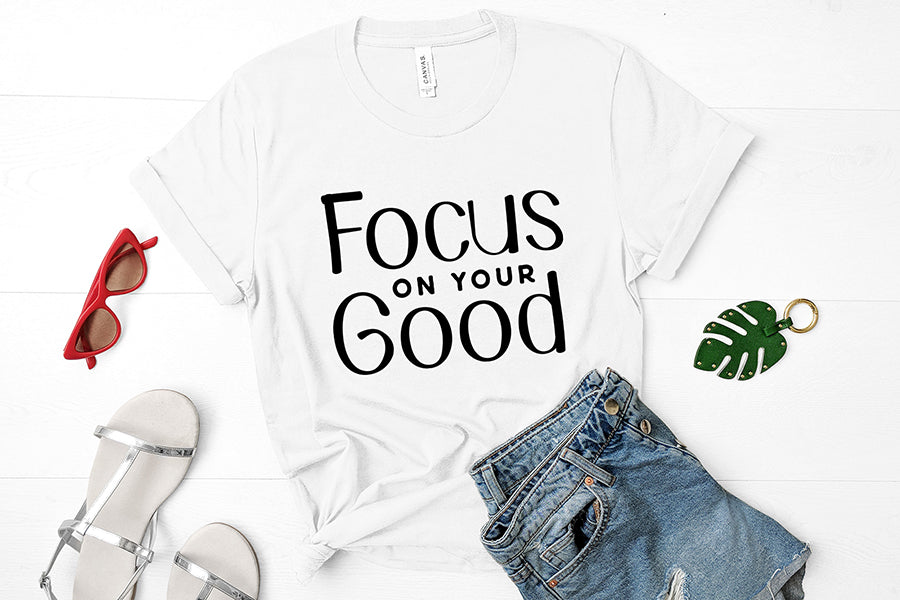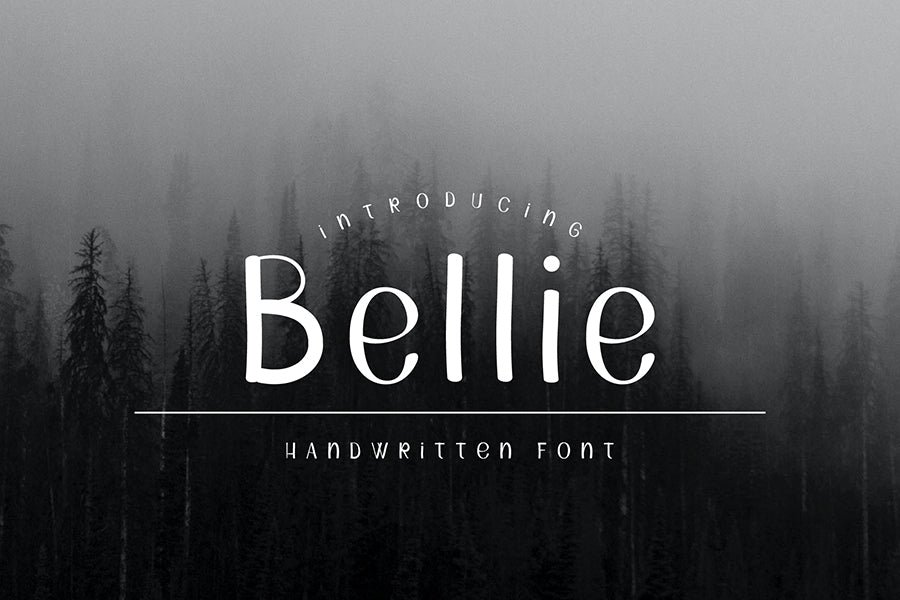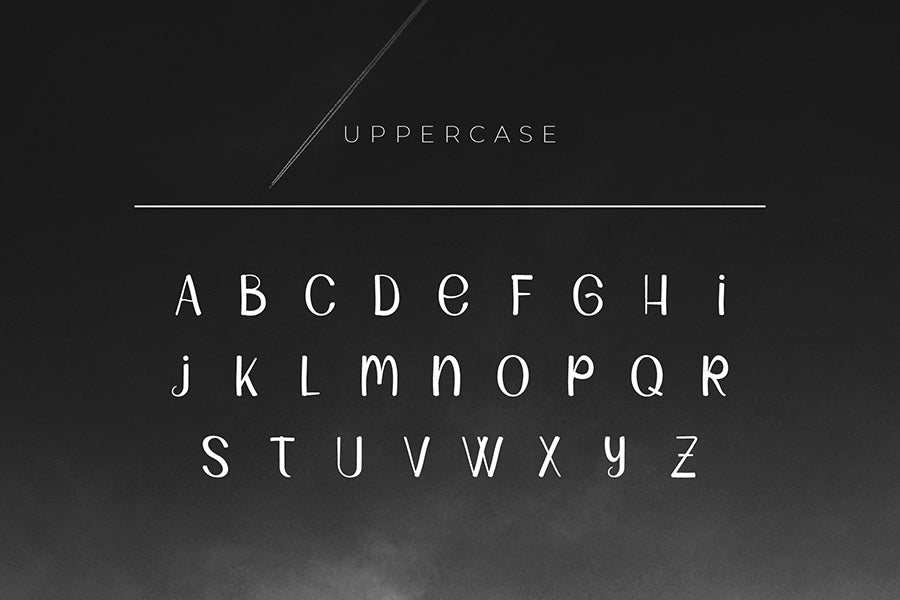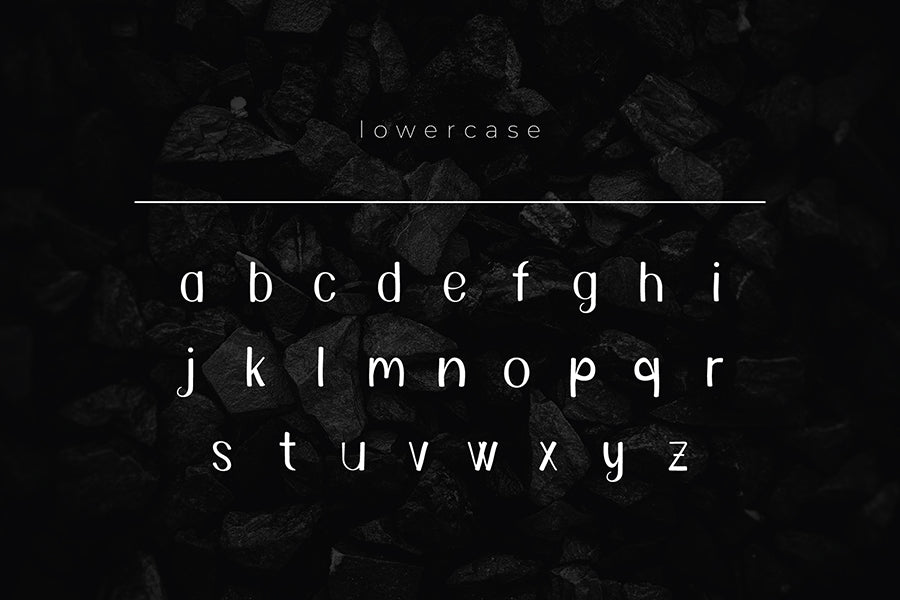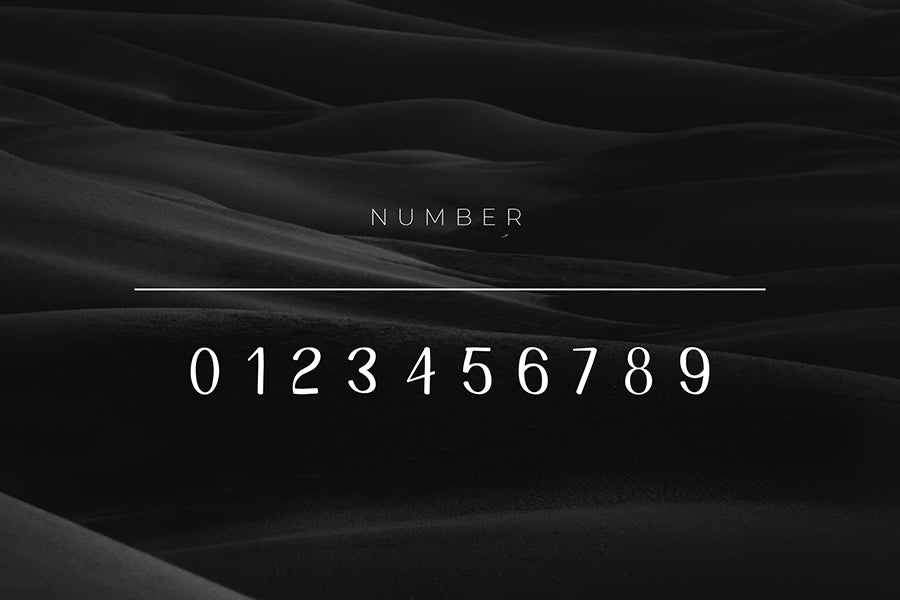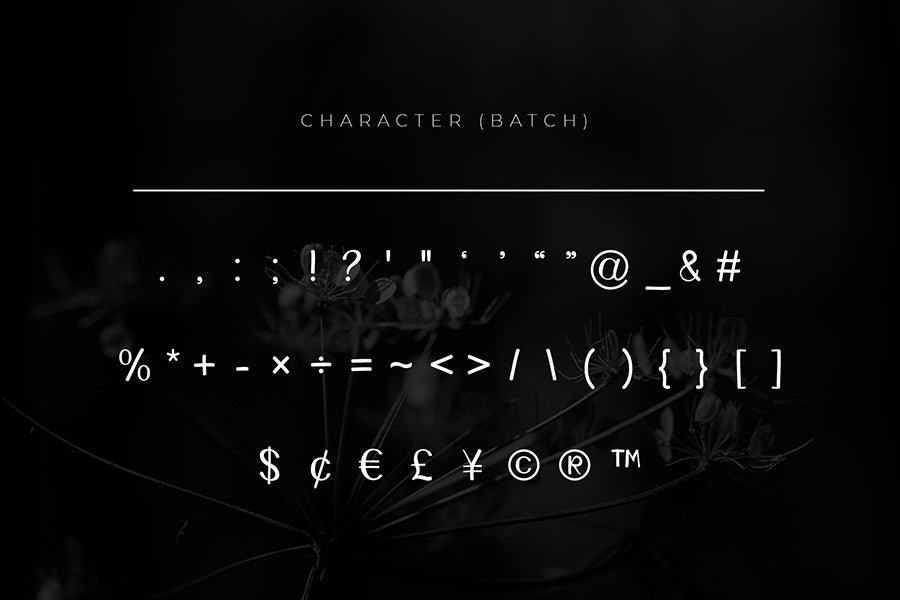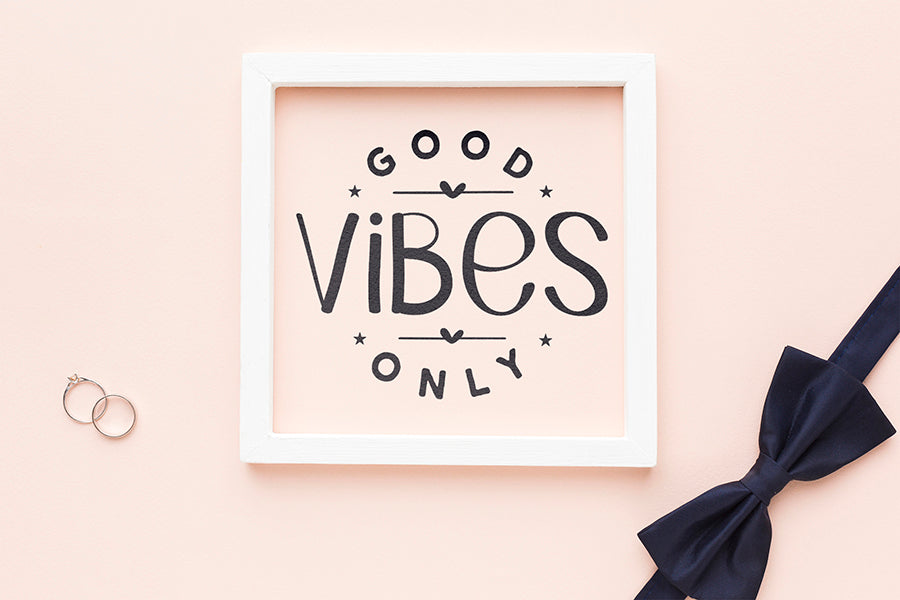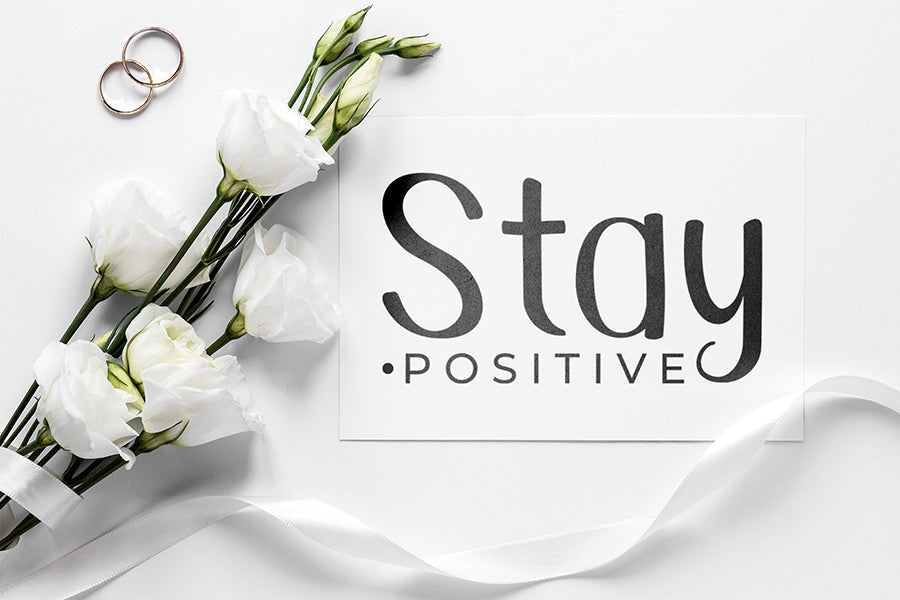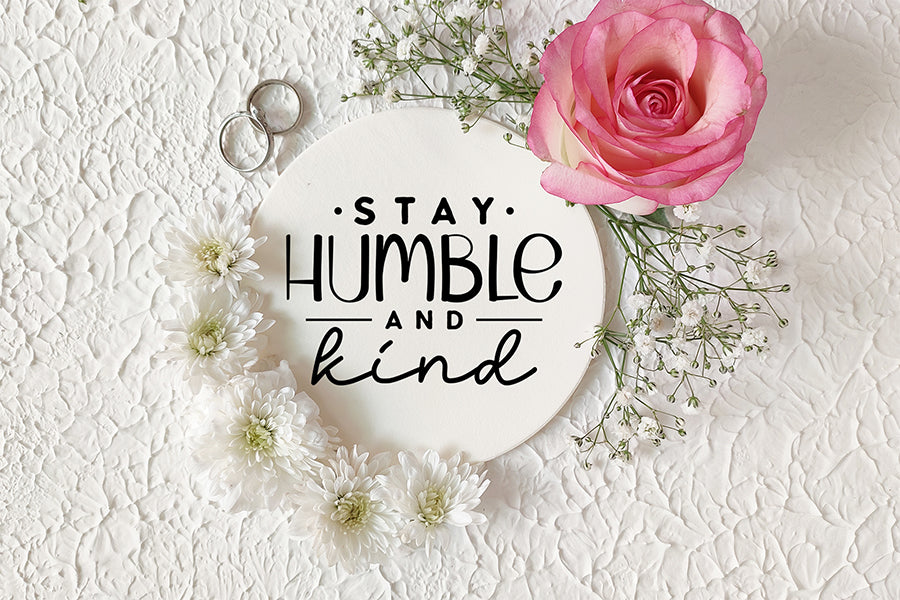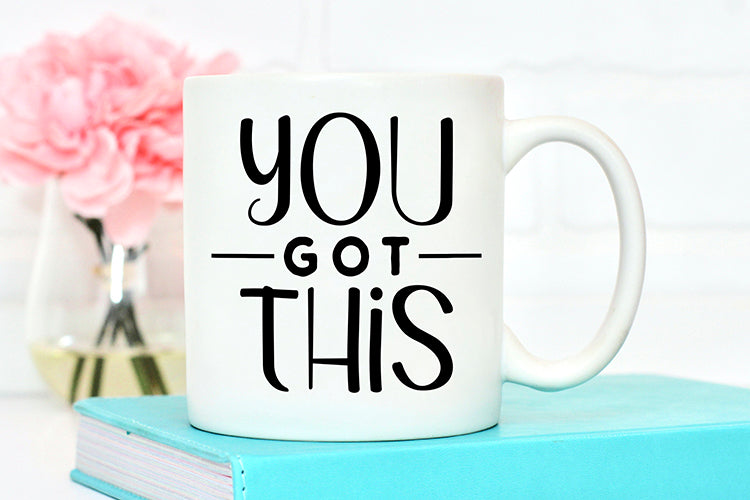
Bellie - Handwritten Font
Bellie is a cool and casual display font. It is suitable for various crafting projects such as t-shirts, mugs, signs, cards, tote bag designs, social media, banners, quote designs and much more creative ideas.